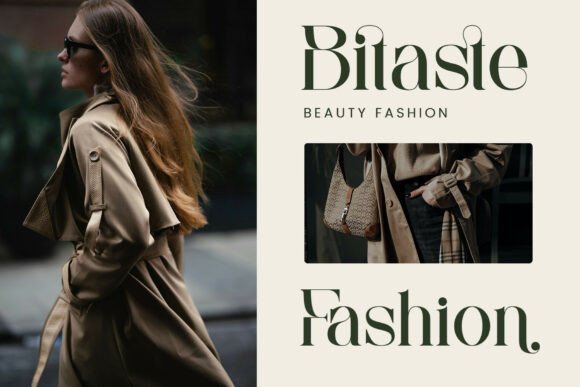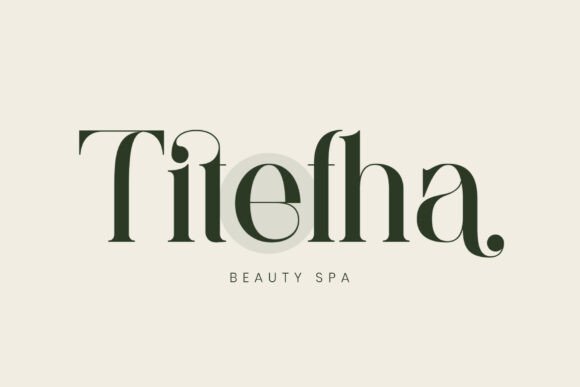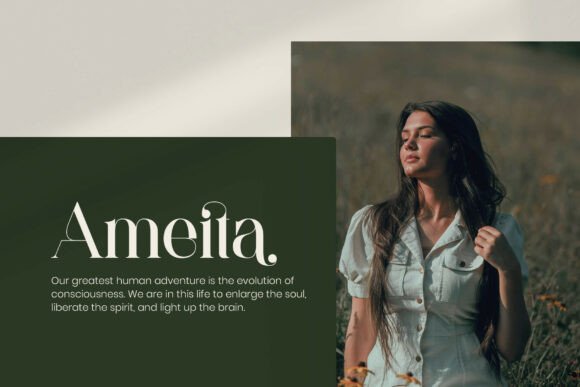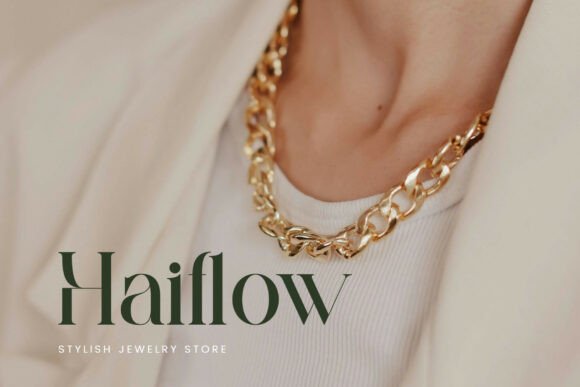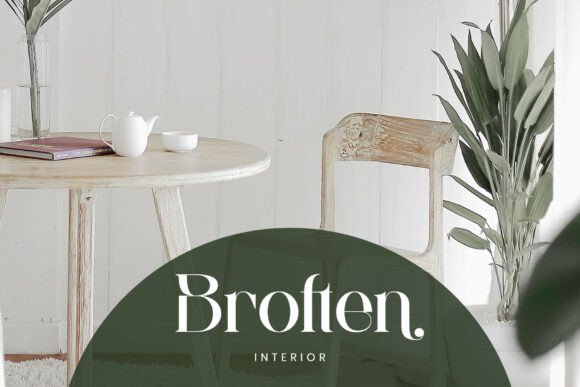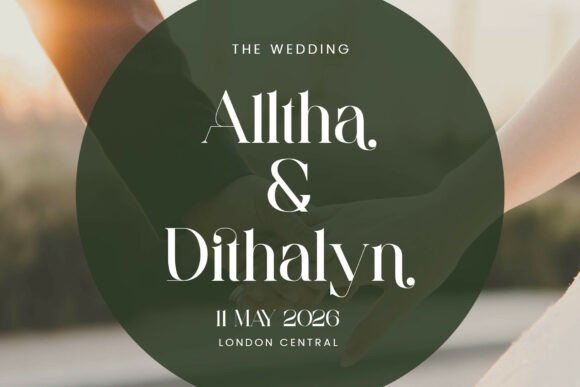
Unveil the Elegance of Faiten Font: A Modern Serif Masterpiece
In the realm of typography, few fonts manage to strike a balance between boldness and delicacy. The Faiten New Modern Serif Font is one such exceptional typeface that seamlessly fuses robust structure with elegant curves, making it a standout in the world of design. This article delves into the unique characteristics, applications, and benefits of the Faiten font, exploring how it can elevate your design projects to new heights of sophistication and professionalism.
The Distinctive Features of Faiten Font
The Faiten font is distinguished by its strong, vertical axes, which impart a sense of solidity and authority. Yet, it’s the unexpected, script-like flourishes in the bowls and terminals of certain characters that add a touch of elegance and uniqueness. This high-contrast typeface combines solid, authoritative serifs with beautifully elongated, dramatic curves, creating a sophisticated tension that feels both classic and distinctly contemporary.
One of the defining features of the Faiten typeface is its commanding presence, making it perfect for high-impact branding. Its distinctive style ensures that any design it is part of stands out, conveying a message of refined professionalism and creative flair.
Applications of Faiten Font
The versatility of the Faiten font makes it an invaluable tool for designers across various projects. Here are some ideal applications:
- Editorial Design: Elevate the look of magazines, newspapers, and books with a font that commands attention yet exudes sophistication.
- Upscale Packaging: Add a touch of luxury to product packaging, making it stand out on store shelves.
- Modern Literary Covers: Give book covers a contemporary yet classic look that appeals to a wide audience.
- Sophisticated Event Branding: Use the Faiten font to create elegant and impactful branding for events, conferences, and galas.
- Distinctive Magazine Mastheads: Create memorable and stylish mastheads that set the tone for the entire publication.
Benefits of Using Faiten Font
Choosing the Faiten font for your design projects comes with several benefits:
- Versatility: Its unique blend of modern serifs and elegant curves makes it suitable for a wide range of design applications.
- PUA Encoding: The font is PUA-encoded, ensuring effortless access to all glyphs, swashes, and alternate characters. This feature allows for extensive customization, giving designers the flexibility to create truly unique pieces.
- High-Impact Branding: The commanding presence of the Faiten font makes it ideal for branding that needs to stand out and make a statement.
- Sophisticated Aesthetic: It brings a level of sophistication and professionalism to any design, making it perfect for high-end projects.
Tips for Maximizing the Potential of Faiten Font
To get the most out of the Faiten font, consider the following tips:
- Experiment with Swashes and Alternates: Take advantage of the PUA encoding to experiment with different swashes, glyphs, and alternate characters. This can add a unique touch to your designs.
- Play with Contrast: The high contrast of the Faiten font makes it versatile for use in headlines, body text, and captions. Experiment with different sizes and weights to create visual hierarchy.
- Pair it Thoughtfully: When pairing the Faiten font with other typefaces, choose fonts that complement its elegance and sophistication. A simple sans serif can create a striking contrast.
| Author | Aqeel_Art |
The Faiten New Modern Serif Font is a masterpiece of modern typography, offering a unique blend of bold structure and delicate curves. Its versatility, combined with its sophisticated aesthetic, makes it an ideal choice for designers looking to make a statement. Whether you’re working on editorial design, upscale packaging, or high-end branding, the Faiten font provides the tools to create something truly remarkable. With its PUA encoding for easy customization, the Faiten font is not just a typeface – it’s a design experience waiting to be explored.